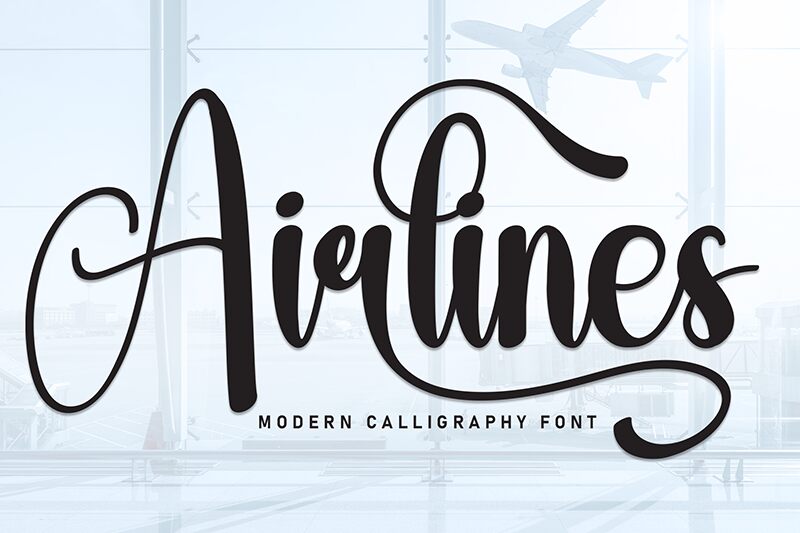
Airlines
Airlines font by Andi Moz is a cohesive modern calligraphy font with elegant flowing forms. The Characters are expressive and sophisticated which together form an eye-catching script to hook the reader from the first glance. Airlines ideally caters to all your needs, and at no additional cost since it is a free calligraphy font.
Possible usages extend from portfolios, magazine covers, advertisements, album covers, brochures and all kinds of prints to food packaging design branding and book cover arts. Online usages are also varied thanks to its grandeur which would thrive in social media posts typography or those featured on your websites.